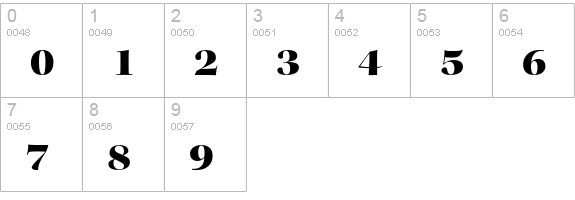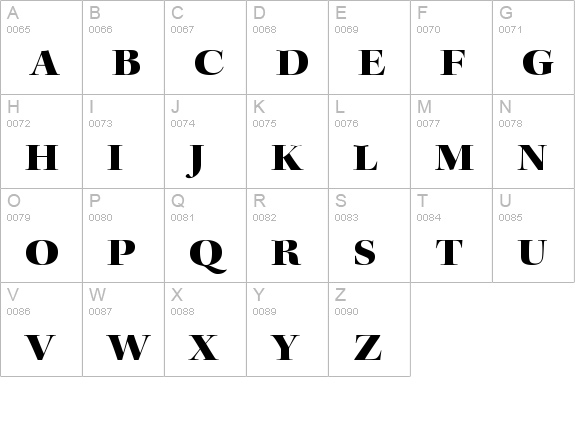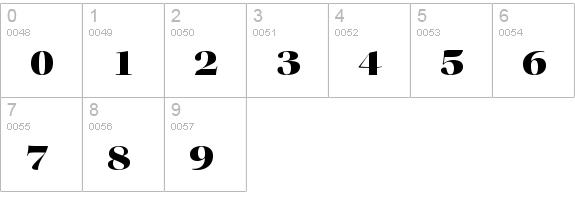
Kepler Std Black Extended Display Font Details
Kepler Std Black Extended Display is a maximum-weight, dramatic, extended-width variant in the Kepler typeface family \xE2\x80\x94 well suited to maximum-impact headlines, posters, and packaging.
Kepler Std Black Extended Display font is a bold and captivating typeface that exudes confidence and power. Its extended display variant adds an extra touch of grandeur, making it perfect for headlines, titles, and large-scale designs. With its strong and commanding presence, Kepler Std Black Extended Display font demands attention and leaves a lasting impression. Its thick and imposing letterforms are meticulously crafted to ensure maximum impact and legibility. This font's versatility allows it to be used in a variety of design projects, from print materials like posters, flyers, and magazine covers, to digital creations such as website headers and social media graphics. No matter the medium, Kepler Std Black Extended Display font is sure to elevate your design and make a bold statement. What's even better is that Kepler Std Black Extended Display font is available for free download at FontsMarket.com. This means that you can add this exceptional font to your collection without breaking the bank. FontsMarket.com offers a wide range of free fonts, including Kepler Std Black Extended Display, allowing designers and enthusiasts to access high-quality typefaces without any cost. So, if you're looking to enhance your designs with a font that embodies strength and sophistication, look no further than Kepler Std Black Extended Display. Download it for free at FontsMarket.com and let your creativity soar.